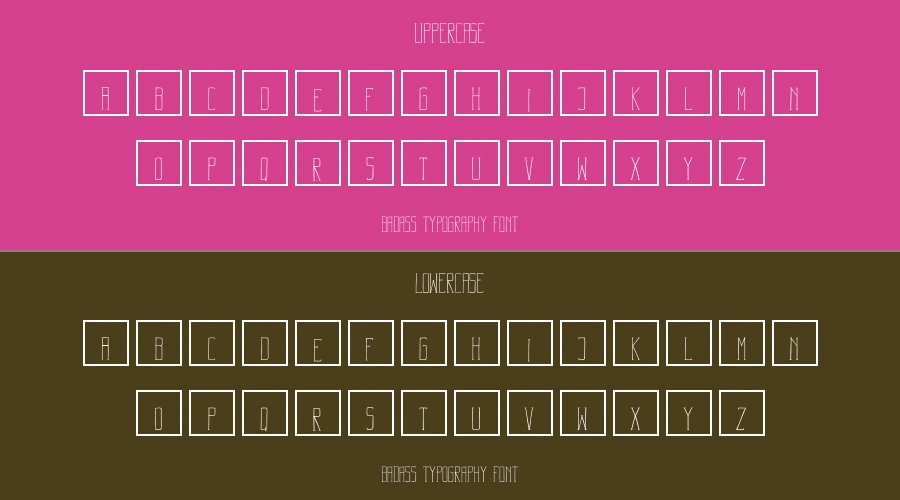
About Badass Typography Font
Badass Typography Font embodies typographic excellence through its masterful combination of straight stems and professional standards. Created for academic publications, this typeface delivers exceptional accuracy and sophistication across all applications. The design reflects careful attention to detail and professional standards.
Advanced capabilities include distinctive precise alignment and versatile initial forms, giving designers creative control. When used in data tables, Badass Typography Font exhibits remarkable OCR compatibility. The harmonious balance between proportion and emotional resonance sets this typeface apart.